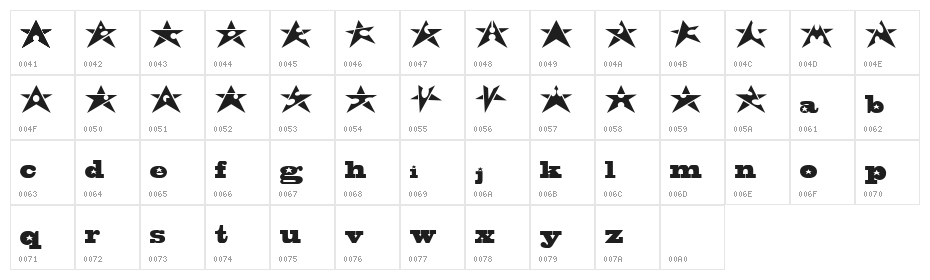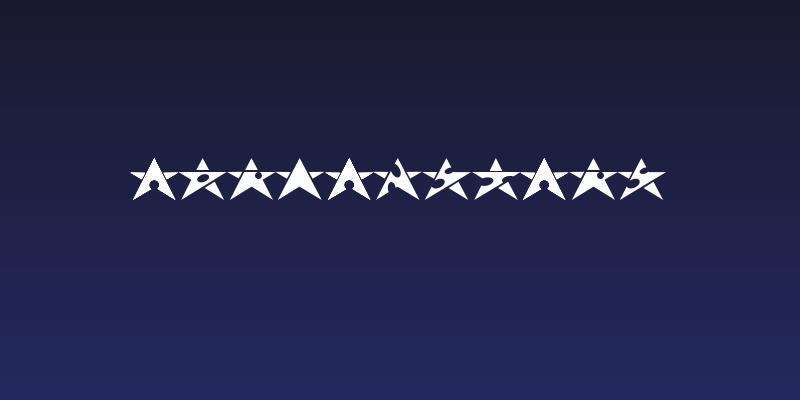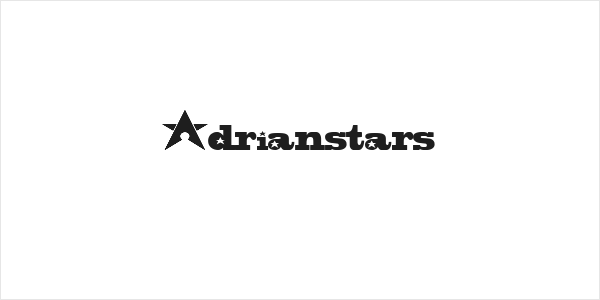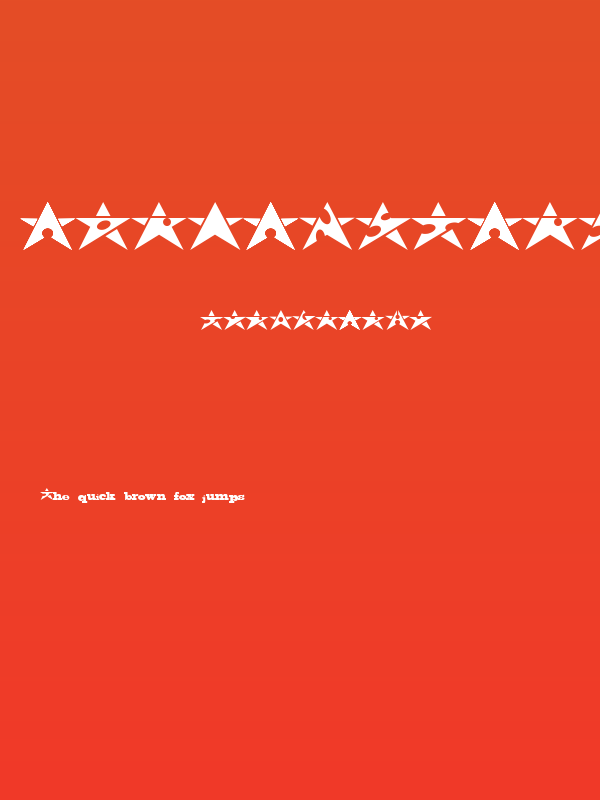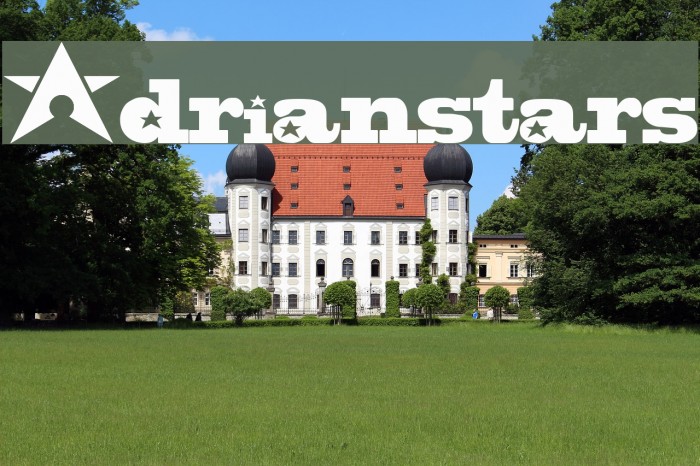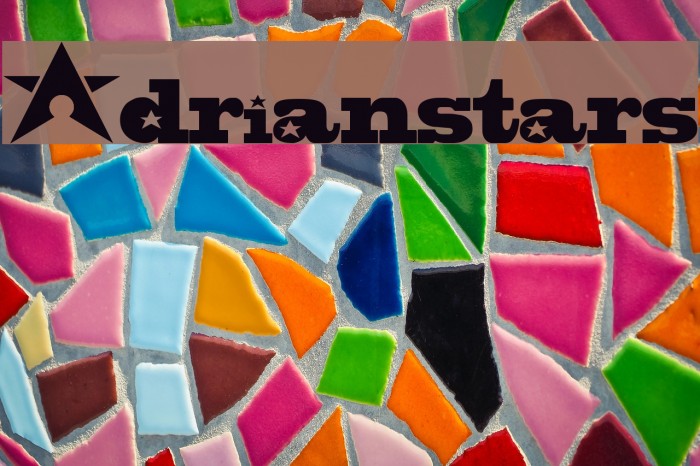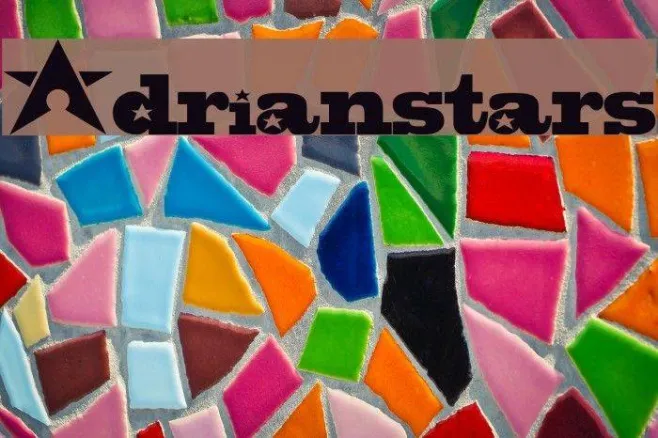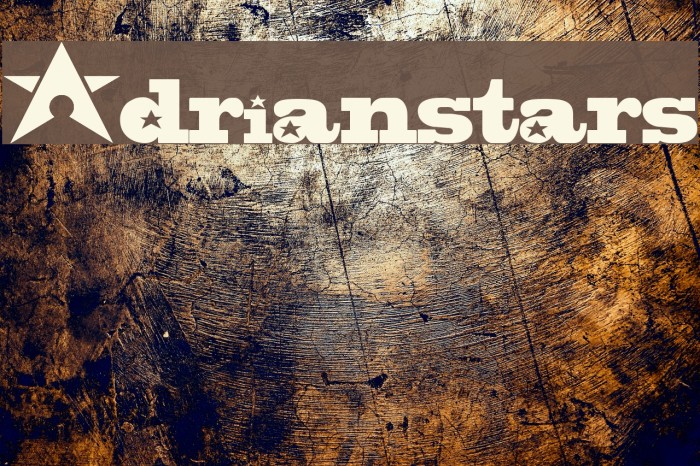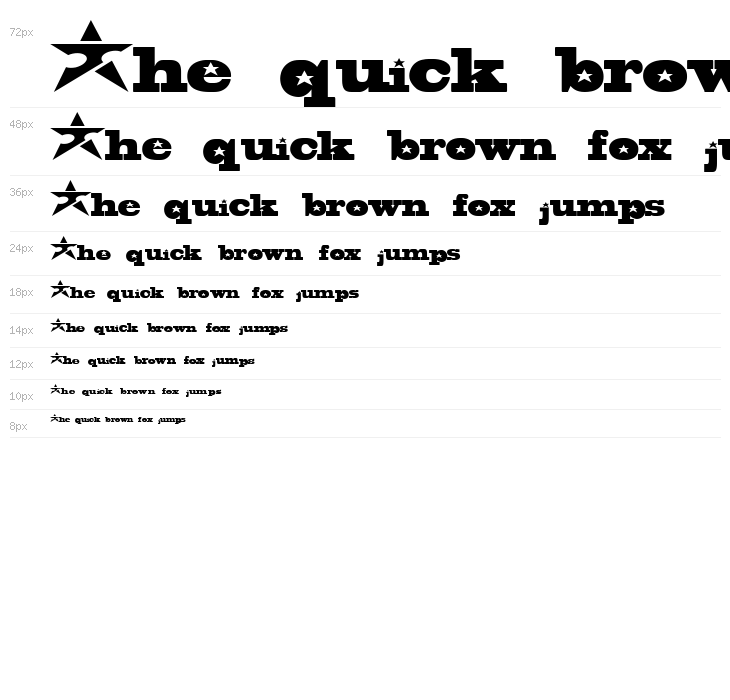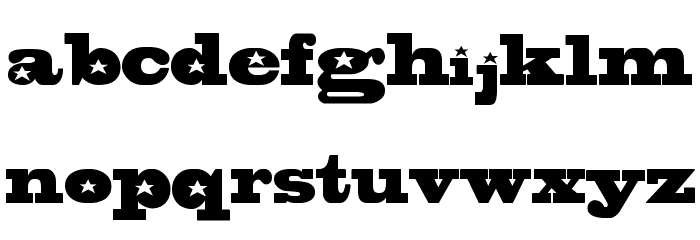
Adrianstars Font
Adrianstars Description
This font is a bold and decorative typeface that integrates star shapes into each character, creating a unique and eye-catching design. The uppercase letters are particularly striking, with each character featuring a star motif that adds a playful and dynamic element. The lowercase letters maintain this theme, ensuring consistency across the typeface. The font's bold weight and strong presence make it ideal for attention-grabbing headlines or logos. Its decorative nature suggests a use in creative projects where a touch of whimsy is desired. The font's overall style is modern and playful, with a high contrast in stroke thickness that enhances its visual impact.
| Overall Style | Modern, Playful |
| Use Case | Headlines, Logos, Creative Projects |
| Proposed Projects | Ideal for creative projects such as event posters, children's book covers, or playful branding. |